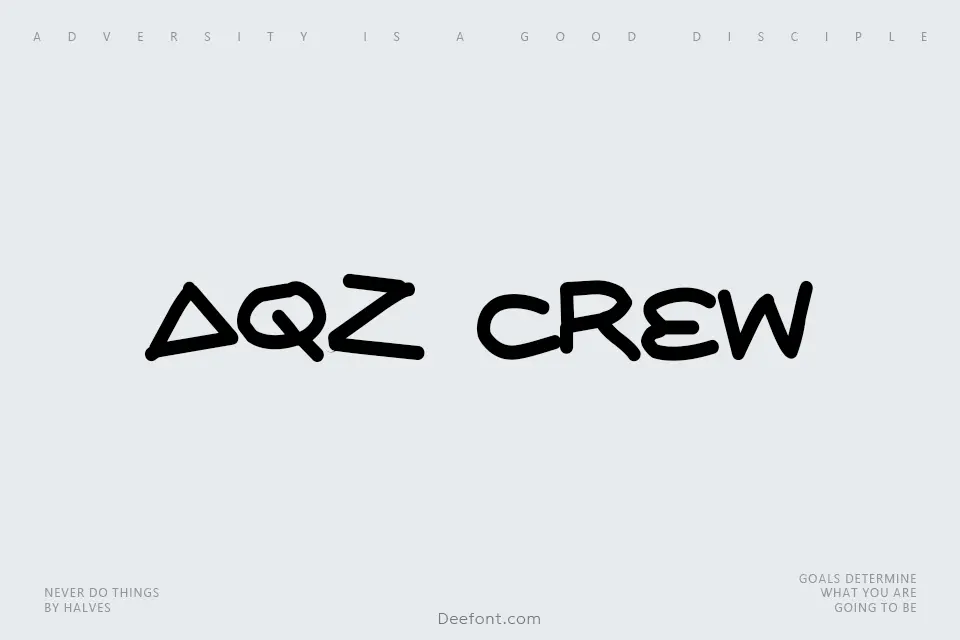
AQZ Crew Font
AQZ Crew is a distinctive graffiti-inspired script font featuring 78 glyphs with bold, urban character. Designed for creative enthusiasts, this typeface delivers an authentic street art aesthetic with dynamic letterforms. Perfect for poster design, street wear branding, and creative typography projects. The font captures a youthful, energetic vibe ideal for contemporary designs that require impact and personality in their visual communication.
Designed by:Tivione